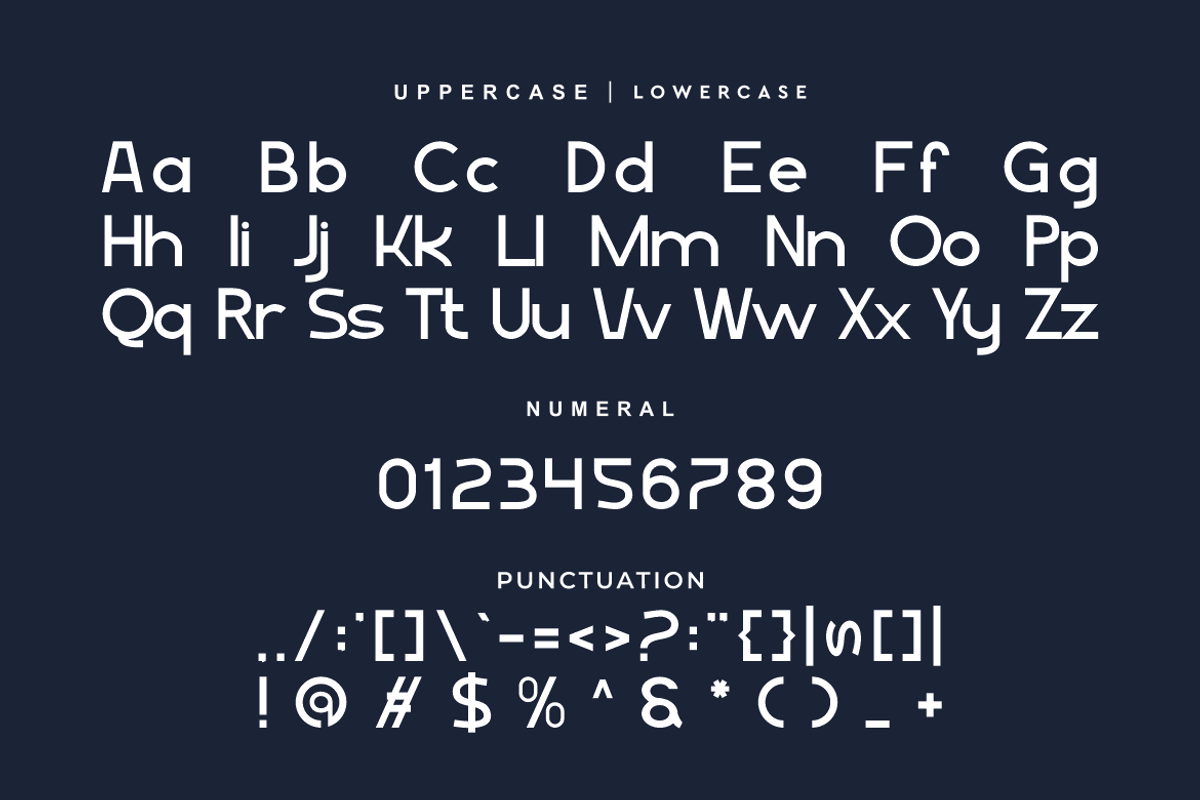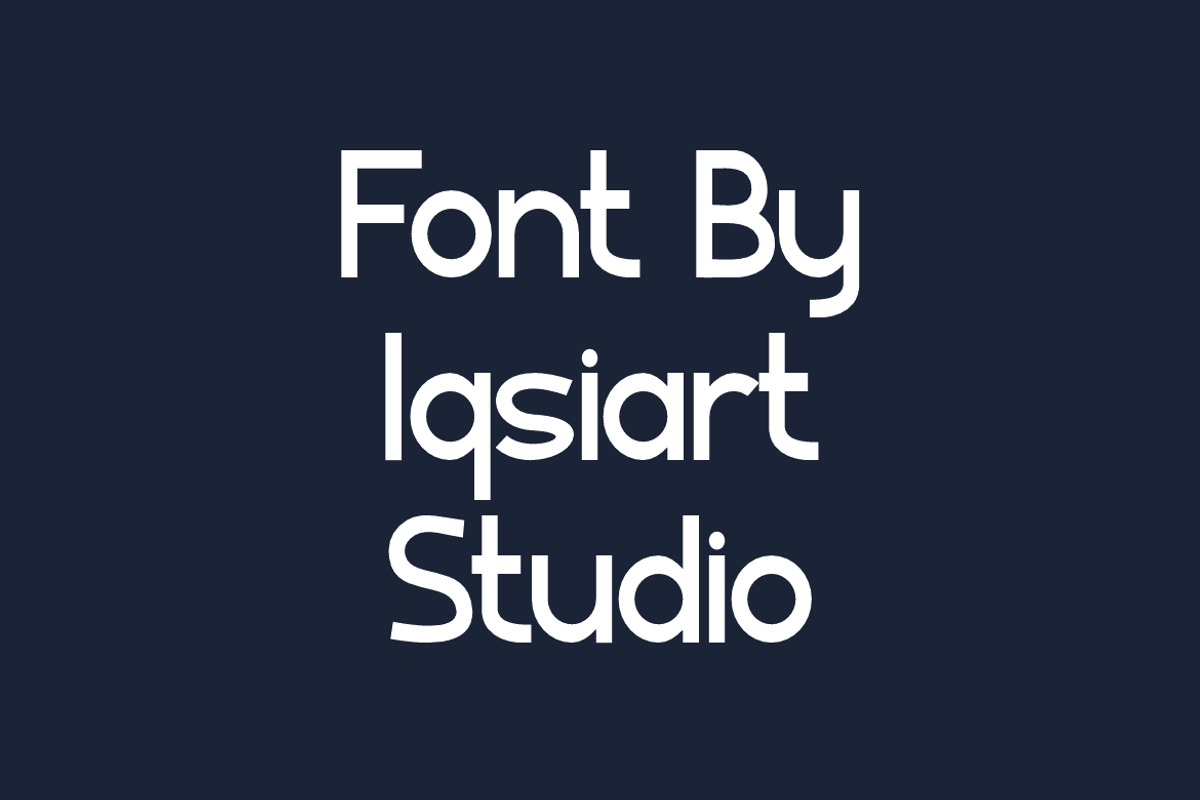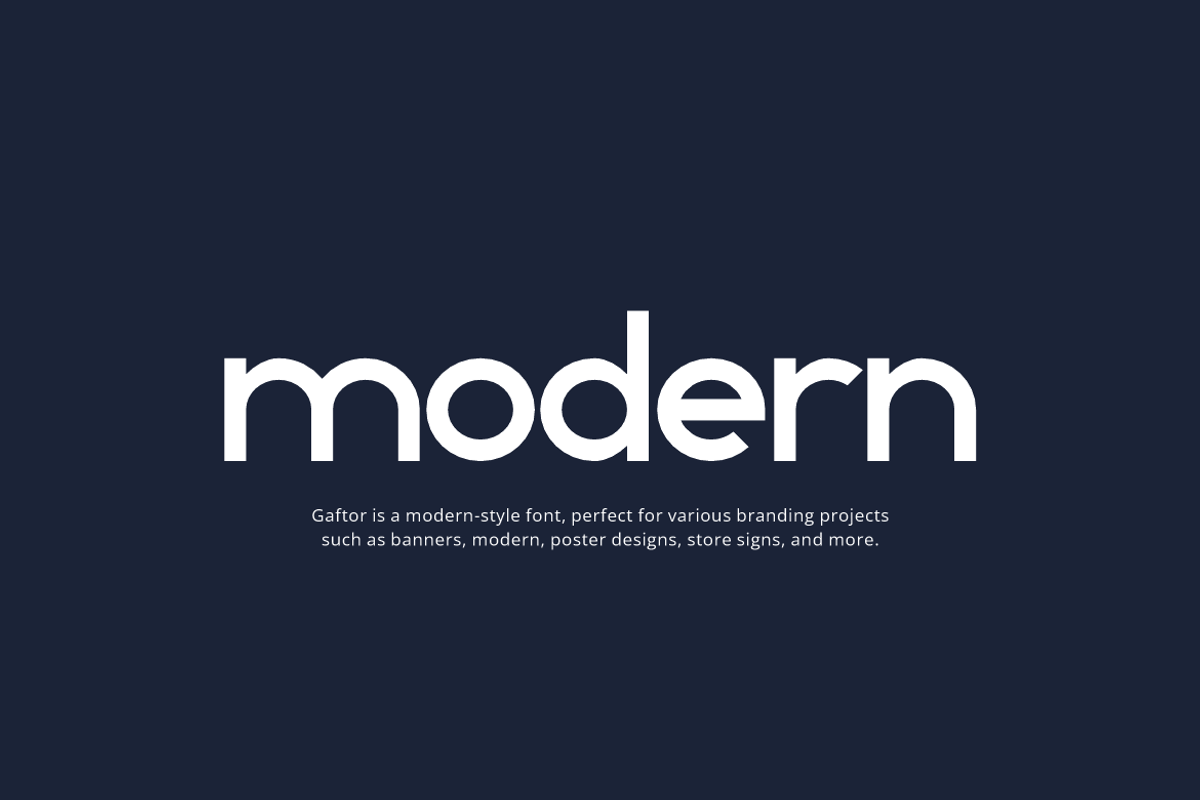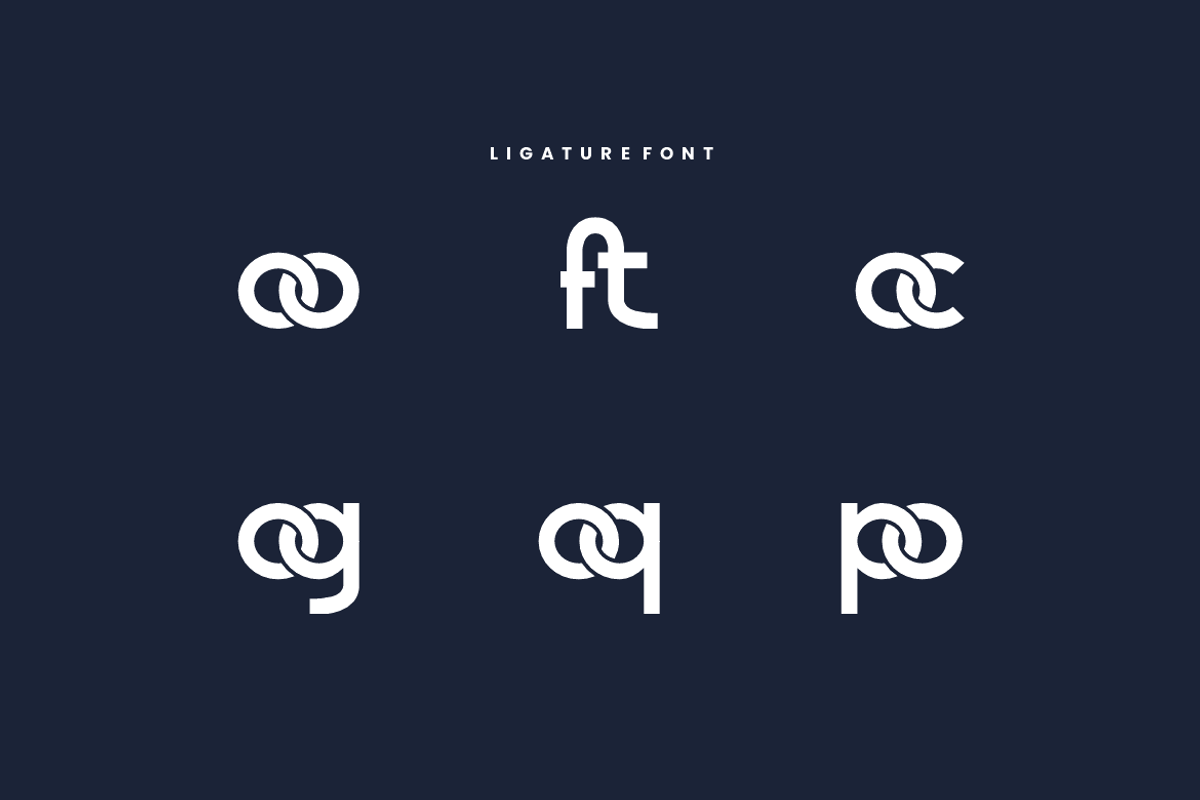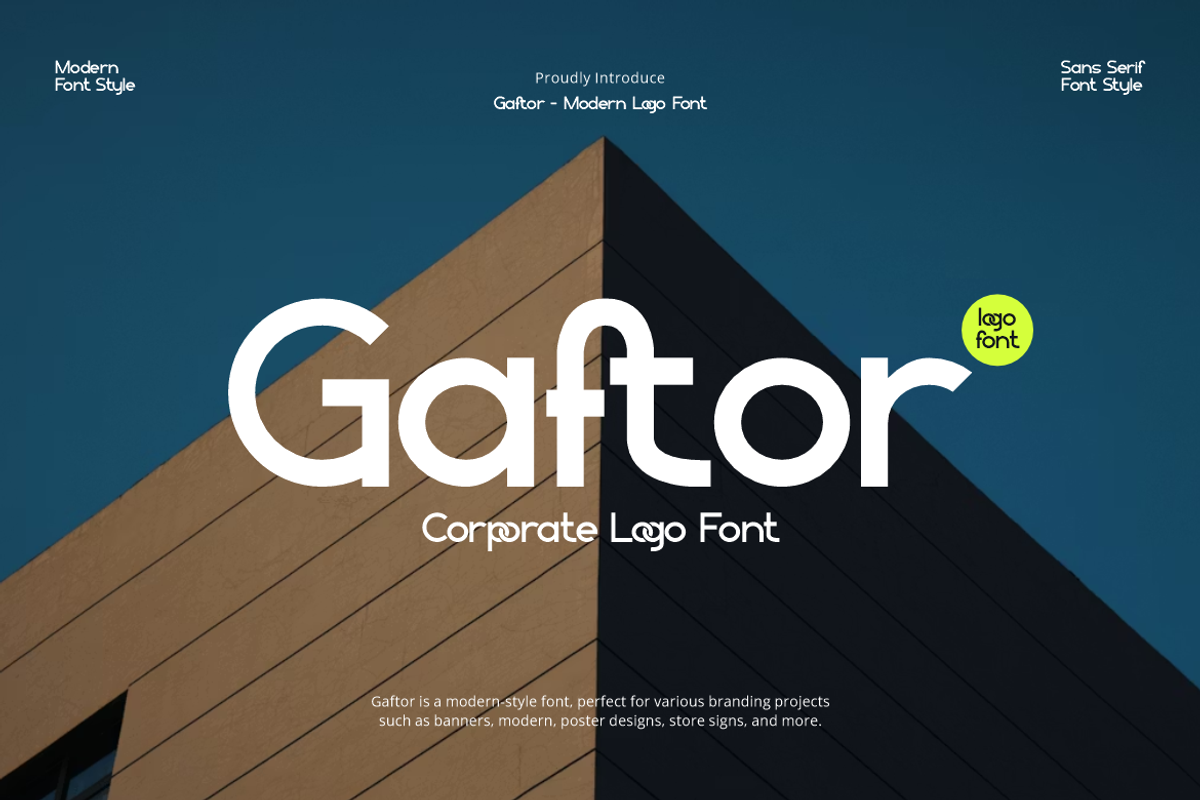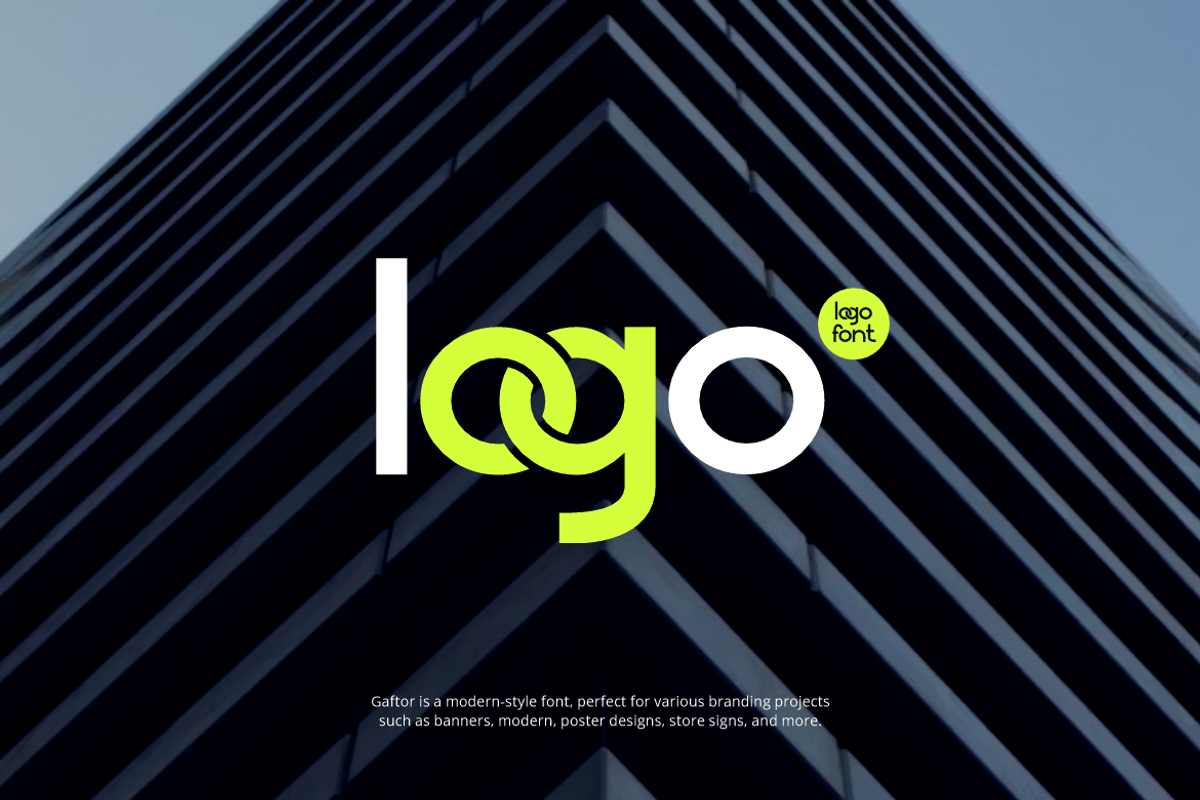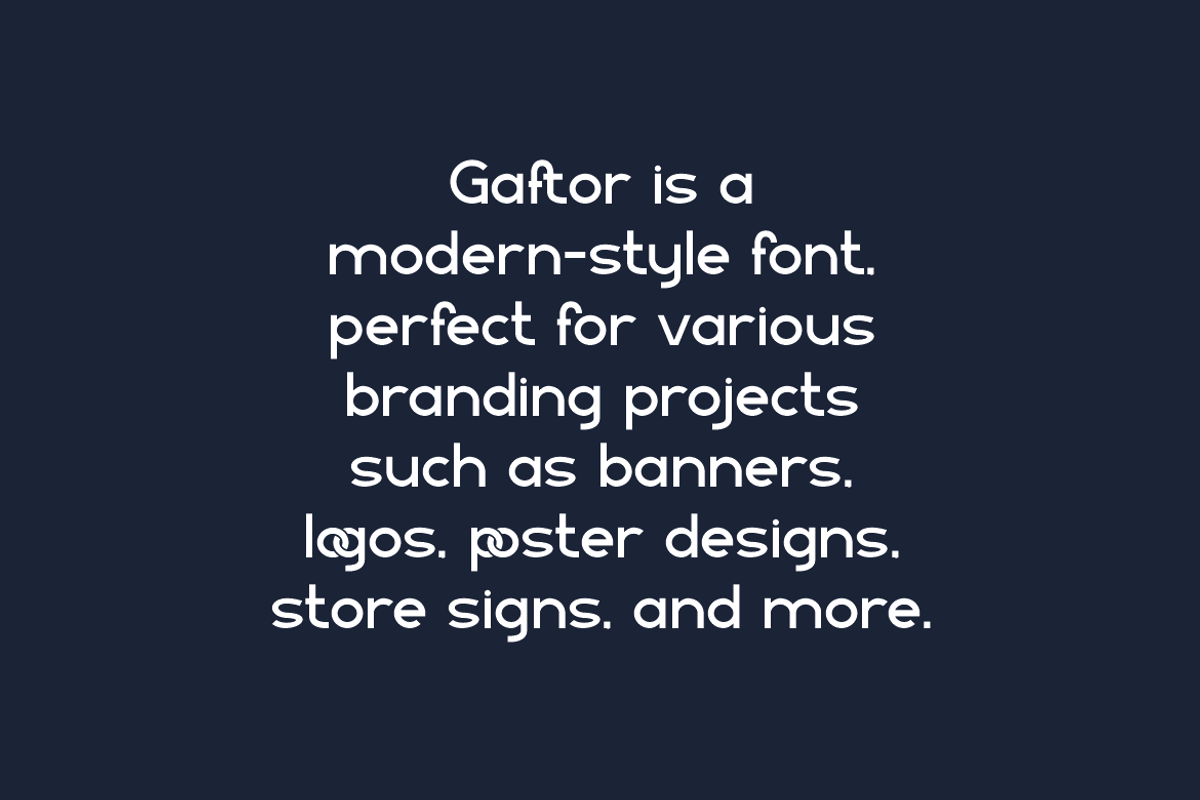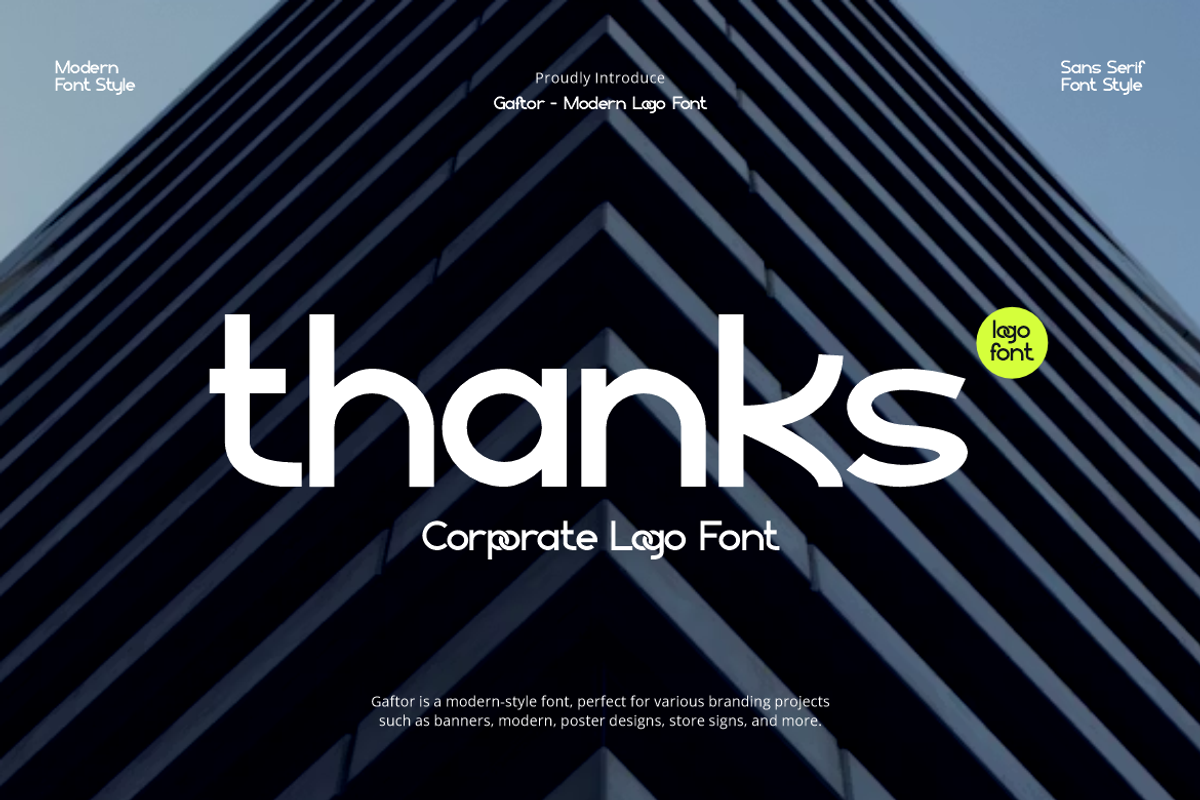
Gaftor - Corporate Logo Font
Gaftor Font is a modern and authentic display typeface that suits a variety of design needs. We offer a wide range of themes and font styles — visit our profile to explore more and find the perfect style for your project.